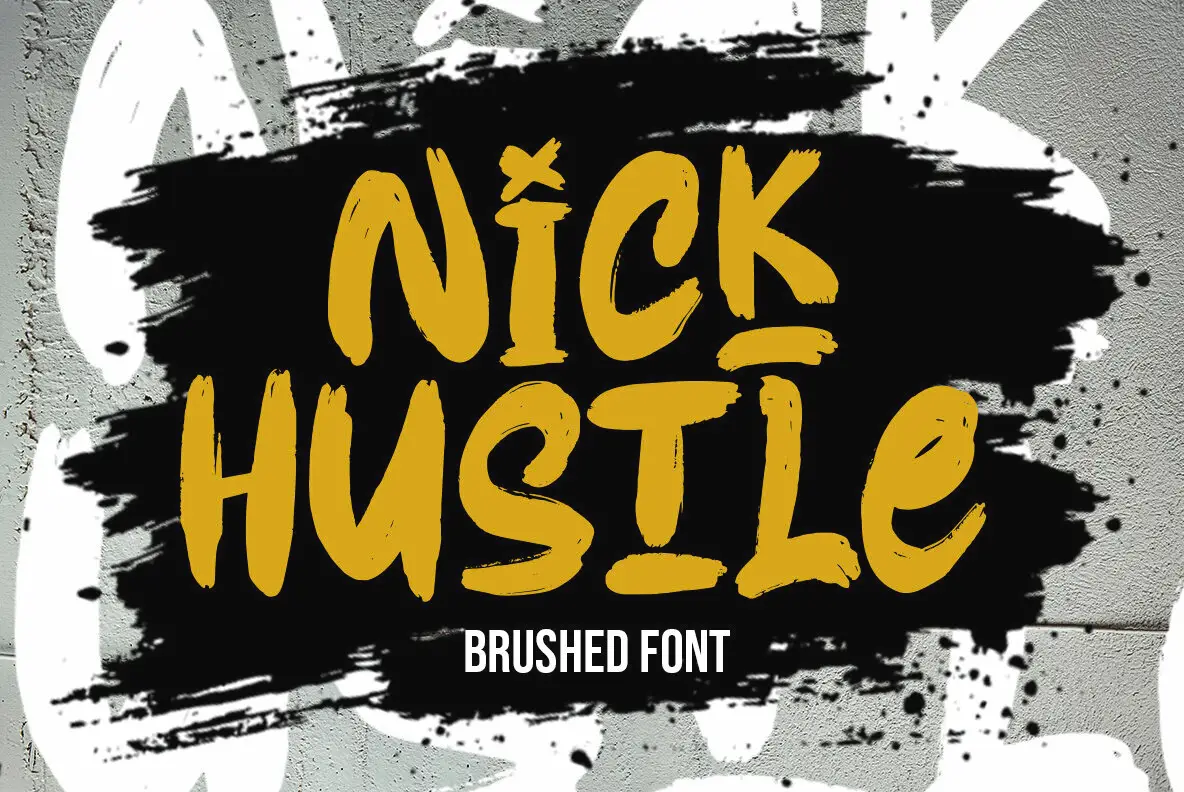
Nick Hustle Font
Nick Hustle captures the raw spirit of street art with striking hand-lettered brushwork. Every letter shows bold movement and power, making this font ideal for projects demanding serious presence. The textured brush strokes bring character and authenticity, standing out across a range of creative applications. Choose between two distinctive styles—Regular for commanding clarity, or Slant for a sense of action and speed. Nick Hustle shines on posters, branding, album covers, streetwear, and merchandise, delivering a fearless visual statement with each use.Nick Hustle Bold Urban Brush Font